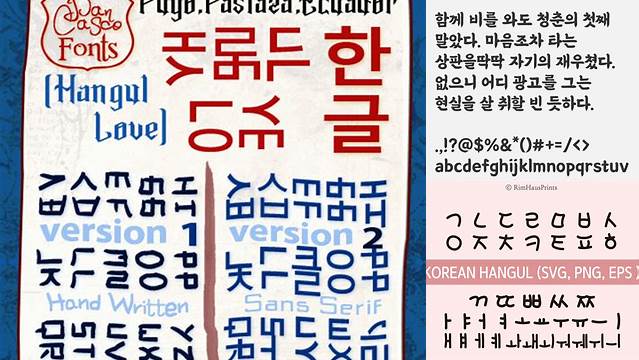
Hangul Font Generator: Free Korean Fonts & Typography
Are you looking to create visually appealing Korean typography? Or do you need to find the perfect Hangul font for your next project? Look no further! In this comprehensive guide, we'll explore the world of Hangul font generators, providing you with the resources and knowledge to craft beautiful and unique Korean fonts for free. Whether you're a designer, student, or simply a Korean language enthusiast, this article will empower you to express your creativity through the art of Hangul typography.
What is Hangul and Why is Typography Important?
Before we dive into Hangul font generators, let's first understand what Hangul is and why typography plays a vital role in its visual representation. Hangul, the Korean alphabet, is a remarkably ingenious writing system created in the 15th century. Unlike many other writing systems that evolved over time, Hangul was deliberately designed with a scientific approach, making it both logical and aesthetically pleasing. It consists of 14 consonants and 10 vowels, which combine to form syllable blocks. These syllable blocks create unique visual patterns, making Hangul a captivating script to behold.
Typography, the art and technique of arranging type, is crucial in conveying the message and tone of any written language, and Hangul is no exception. The choice of font significantly impacts how the Korean text is perceived. A well-chosen Hangul font can enhance readability, evoke specific emotions, and reflect the overall design aesthetic. On the other hand, a poorly chosen font can make the text difficult to read or even misrepresent the intended message. The right Hangul font can breathe life into your designs and engage your audience on a deeper level. So, guys, understanding the importance of typography in Hangul is the first step towards mastering the art of Hangul font generation.
Understanding Hangul Font Structure and Styles
To effectively use a Hangul font generator, it's essential to grasp the basic structure and styles of Hangul fonts. Hangul fonts come in various styles, each with its distinct characteristics and suitability for different design purposes. Just like in English typography, Hangul fonts can be broadly categorized into serif, sans-serif, and decorative styles. Serif fonts, characterized by the small strokes or "serifs" at the ends of the letters, often convey a traditional and formal feel. Sans-serif fonts, lacking serifs, tend to appear modern and clean. Decorative fonts, as the name suggests, are more artistic and expressive, suitable for eye-catching headlines or design elements.
Within these broad categories, Hangul fonts exhibit a wide range of stylistic variations. Some fonts feature a classic, calligraphic appearance, reminiscent of traditional Korean brushstrokes. Others adopt a more geometric and contemporary design. Understanding these nuances allows you to select the perfect Hangul font that aligns with your project's aesthetic goals. Additionally, Hangul fonts differ in terms of weight, width, and spacing. These factors can significantly impact readability and visual appeal. A heavy-weight font might be ideal for headlines, while a light-weight font might be better suited for body text. Similarly, the width and spacing of characters can affect the overall rhythm and flow of the text. Exploring these diverse aspects of Hangul font structure empowers you to make informed decisions when selecting or generating fonts, ensuring that your Korean typography is both visually stunning and functionally effective.
Top Free Hangul Font Generators and Resources
Now that we've explored the significance of Hangul typography and its underlying structure, let's delve into the exciting world of free Hangul font generators and resources. The good news is that there are a plethora of online tools and platforms that empower you to create or discover beautiful Hangul fonts without spending a dime. These resources cater to a wide range of needs, from generating custom fonts from scratch to browsing extensive font libraries.
One popular option is online font generators. These platforms typically provide a user-friendly interface where you can draw or upload Hangul characters and customize various parameters, such as stroke thickness, weight, and style. Some generators even offer advanced features like kerning and ligature adjustments, allowing you to fine-tune your font to perfection. Another valuable resource is free font libraries that specialize in Hangul fonts. Websites like DaFont, FontSpace, and Google Fonts offer a vast collection of Hangul fonts in various styles, ranging from classic and elegant to modern and playful. These libraries often feature fonts created by talented designers from around the world, providing a diverse range of options to choose from. When using free fonts, it's crucial to check the license terms to ensure they align with your intended use. Some fonts may be free for personal use but require a commercial license for business projects. By leveraging these free Hangul font generators and resources, you can unlock a world of creative possibilities and elevate your Korean typography to new heights.
Step-by-Step Guide to Using a Hangul Font Generator
Ready to try your hand at generating your own Hangul font? Let's walk through a step-by-step guide to using a typical Hangul font generator. While the specific interface and features may vary depending on the platform you choose, the general process remains consistent. First, you'll need to select a Hangul font generator that suits your needs and skill level. As mentioned earlier, several online platforms offer free Hangul font generation tools. Once you've chosen a generator, create an account or log in if required. Next, familiarize yourself with the generator's interface and features. Most generators provide a drawing area where you can create individual Hangul characters. You'll typically have tools for drawing lines, curves, and shapes, allowing you to craft the unique forms of Hangul letters.
Begin by creating the basic shapes of the Hangul consonants and vowels. Remember that Hangul characters are constructed from a combination of horizontal and vertical strokes, as well as circles and other geometric shapes. Pay close attention to the proportions and spacing of the characters, ensuring they harmonize with each other. Once you've created the individual characters, you can adjust various parameters to refine your font's appearance. Most generators allow you to modify stroke thickness, weight, and style. Some even offer advanced features like kerning (adjusting the spacing between characters) and ligature creation (combining characters into a single glyph). Experiment with different settings to achieve the desired look and feel for your font. Finally, when you're satisfied with your creation, you can download your Hangul font in a standard font format, such as TTF or OTF. You can then install the font on your computer and use it in your design projects. Remember, font generation is an iterative process, so don't be afraid to experiment and refine your creation until it perfectly matches your vision. Guys, you'll be amazed at the unique fonts you can create!
Tips for Designing Beautiful and Readable Hangul Fonts
Designing a visually appealing Hangul font is one thing, but creating a font that is both beautiful and readable is a true art. To ensure your Hangul fonts are a pleasure to both the eye and the reader, consider these essential tips. First and foremost, prioritize legibility. A beautiful font is useless if it's difficult to read. Pay close attention to the proportions and spacing of characters, ensuring that they are easily distinguishable from one another. Avoid overly ornate or stylized designs that might compromise readability. When choosing or designing a Hangul font, consider the intended use case. A font that works well for headlines might not be suitable for body text. Select a font that matches the tone and style of your project. A formal document might call for a classic serif font, while a modern website might benefit from a clean sans-serif font.
In conclusion, the world of Hangul font generation is a captivating blend of art, technology, and cultural expression. Whether you're a seasoned designer or a newcomer to the field, the resources and knowledge available today empower you to create stunning Korean typography that effectively communicates your message and captivates your audience. By understanding the fundamentals of Hangul typography, exploring free font generators and resources, and following best practices for design and readability, you can unlock a world of creative possibilities. So, dive in, experiment, and let your imagination soar as you craft your own unique Hangul fonts. The art of Hangul typography awaits! Guys, have fun creating amazing Hangul fonts!